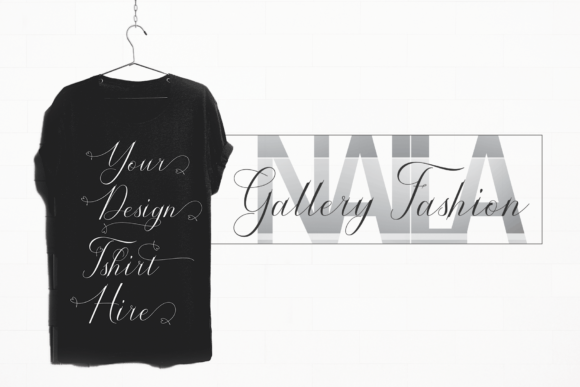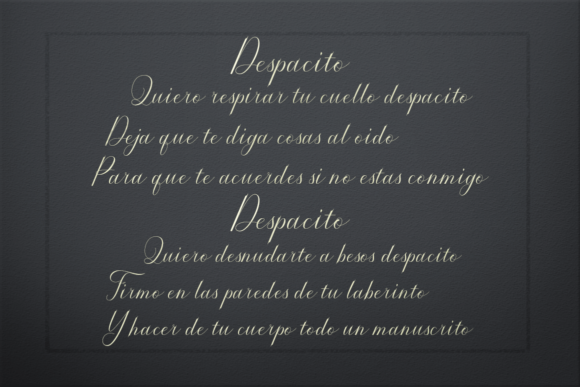
Serendipity Font
About Serendipity Font
Serendipity is a truly classic calligraphy font; this thin, delicate and traditional script font will give your designs a timeless appeal, and this font excels in print work in large formats.